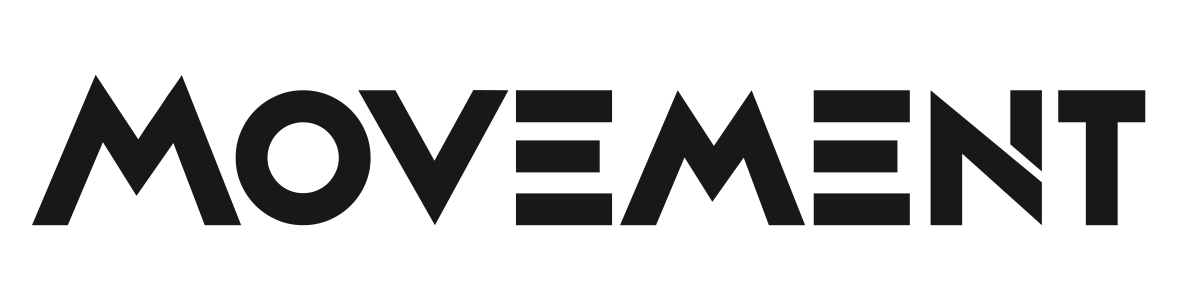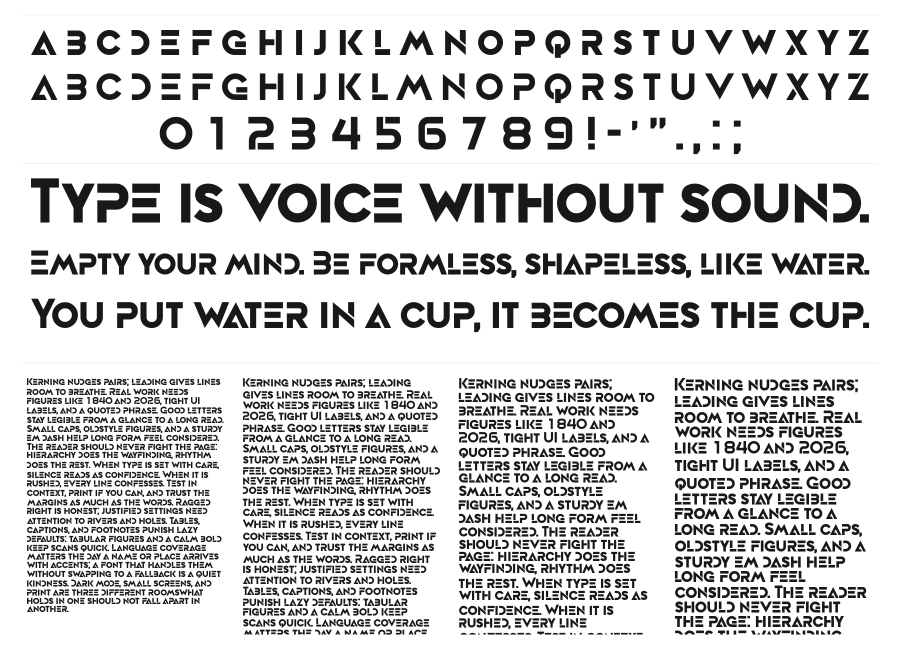
Movement
Movement is a bold geometric sans with angular slices cut through its strokes, creating a sense of speed and kinetic energy. The wide, blocky characters carry a confident weight that reads instantly at large sizes. It sits naturally in sports branding, gaming titles, and any context that calls for visual momentum.